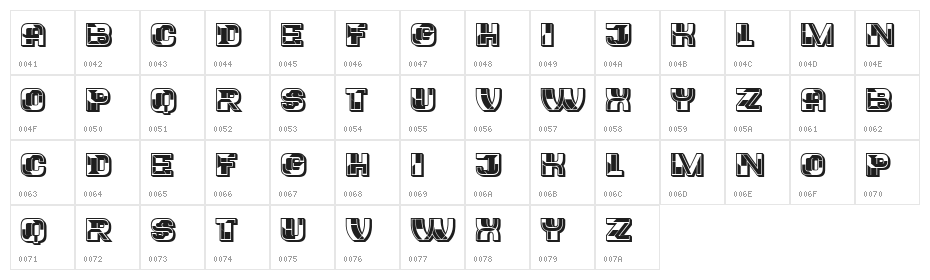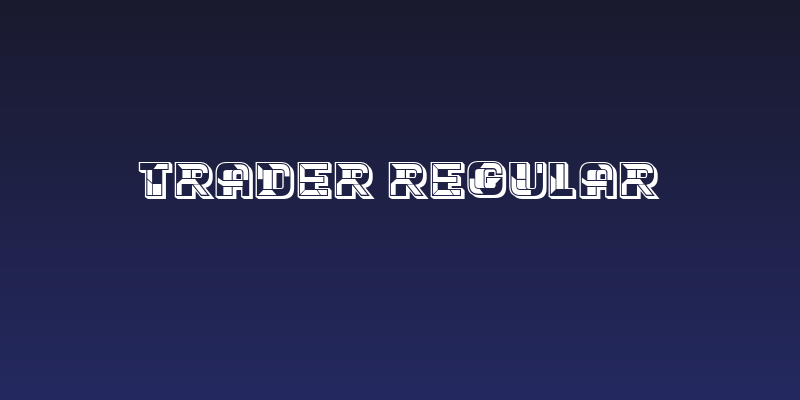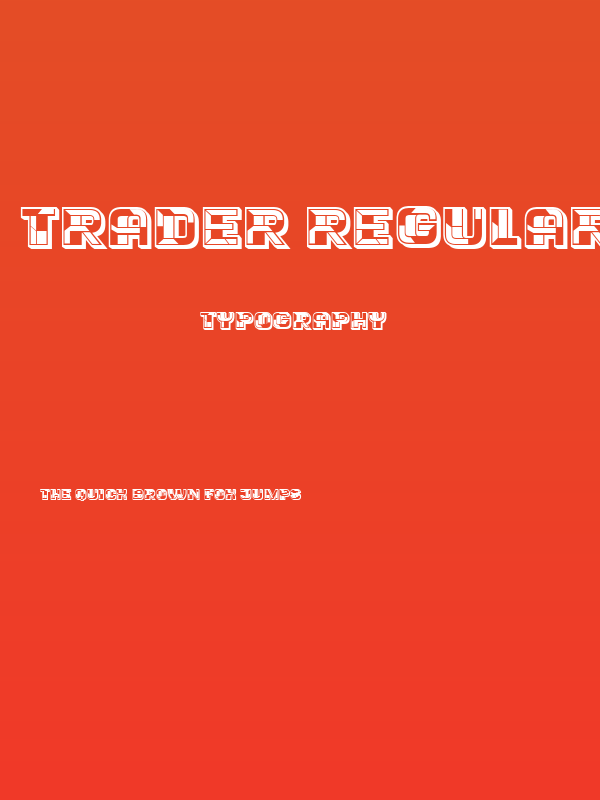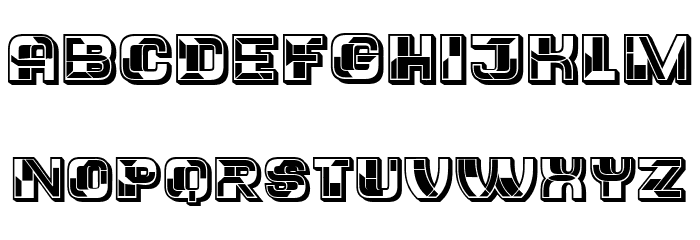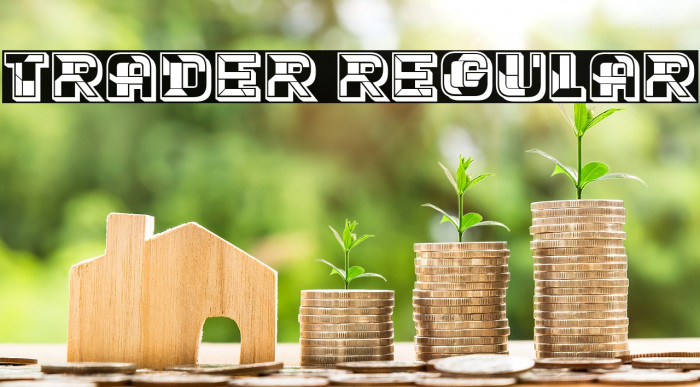
Trader Regular Font
Trader Regular Description
This font features a bold, geometric design with a distinct three-dimensional effect. Each character is outlined with a thick border, creating a striking contrast between the filled and unfilled spaces. The letters are constructed with angular, block-like shapes that give them a modern and industrial feel. The use of negative space within the characters enhances the dimensionality, making the font stand out in any design. Its uppercase letters are uniform in height and width, contributing to a cohesive and structured appearance. This font is ideal for projects that require a strong visual impact, such as posters, logos, and headlines.